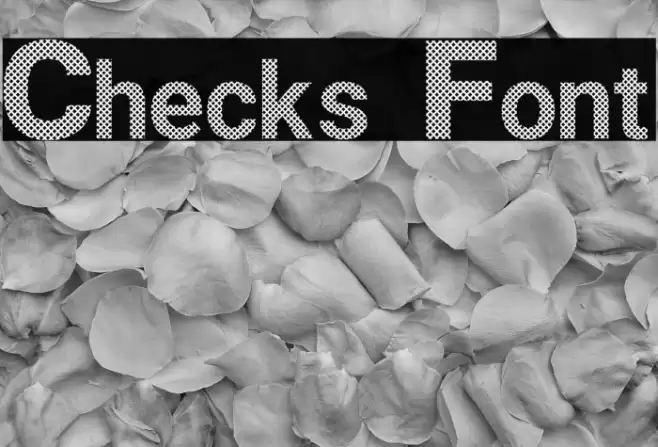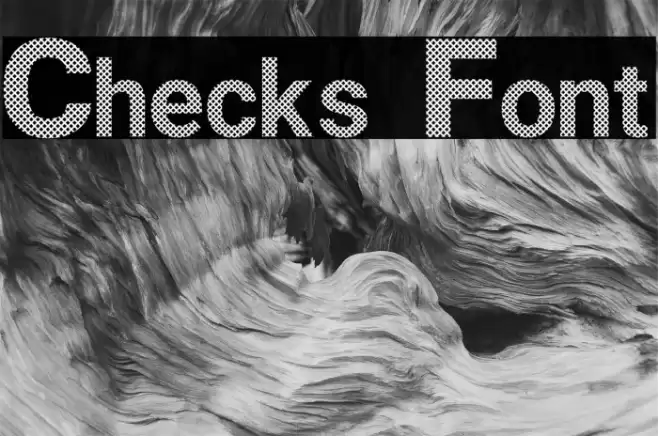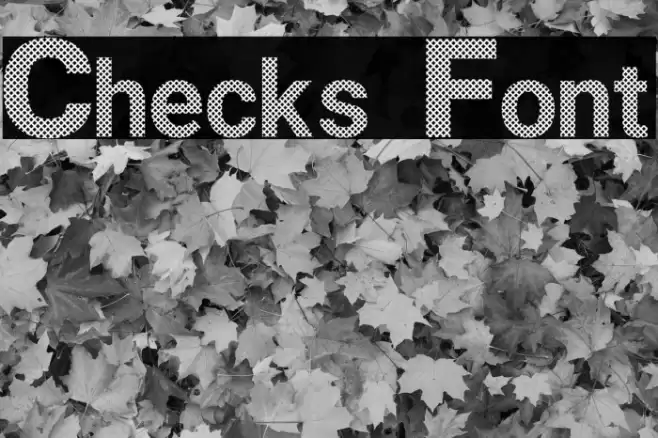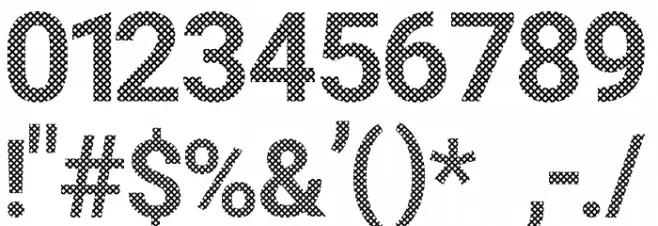
Checks Font Description
This font features a bold, decorative style with a unique checkered pattern filling each character. The uppercase and lowercase letters, as well as numbers and special characters, are all designed with a consistent grid-like texture that adds a playful yet structured aesthetic. The font maintains a uniform thickness across all characters, ensuring readability while emphasizing its distinct design. The geometric pattern within each letter gives it a modern and eye-catching appearance, making it suitable for creative and artistic projects.
A bold, decorative font with a unique checkered pattern from Uncategorized fonts.